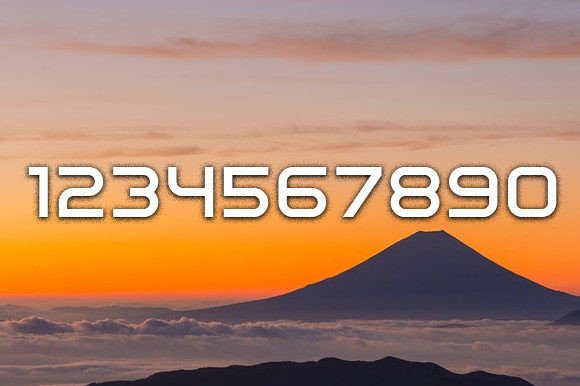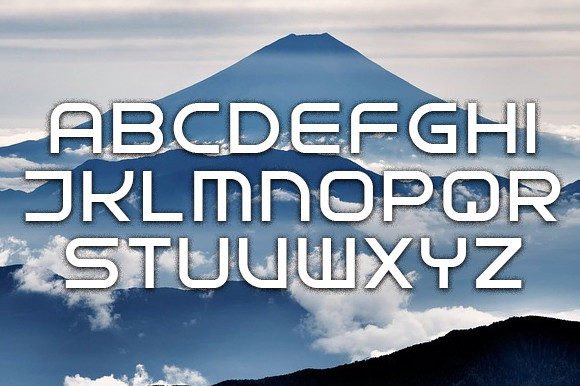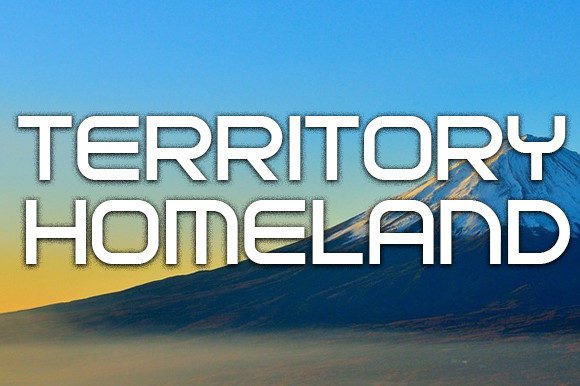
Introduction to Prefectures Font
Do you remember the moment when a font choice completely transformed your creative project? For designers, this feeling is all too familiar. It’s the spark that takes your idea from ordinary to extraordinary. And that’s exactly what Prefectures Font can do for your next high-quality design.
As a free download, Prefectures Font offers a clean and simple sans serif design that’s perfect for a variety of creative projects, from posters and flyers to t-shirts and more. With its transparent background and sleek aesthetic, this versatile font is sure to elevate your designs and make them stand out in a crowd.
Whether you’re working on a personal project or a commercial design, Prefectures Font is a valuable resource that’s sure to become a go-to choice for your creative endeavors.
Prefectures Font
- High-quality font designed for creative projects, available for free download.
- Includes 4 unique styles with transparent background, perfect for adding depth to your designs.
- Designed to be versatile, Prefectures Font can be used for a wide range of creative projects, from logos to signage.
- Each style features unique characteristics, such as subtle texture and intricate details, adding an extra layer of depth to your designs.
Honest Review: Prefectures Font
I recently had the chance to work with the Prefectures Font, and I must say it’s a high-quality design resource that’s perfect for any creative project.
- ✨ Unique and modern design: The Prefectures Font offers a modern and unique aesthetic that’s sure to make your design stand out.
- ✨ Transparent background: The transparent background option gives designers more flexibility when working on designs with complex backgrounds.
- ⚠️ Not ideal for small text: The font’s design makes it less suitable for small text, where legibility can be a concern.
Overall, I’m impressed with the Prefectures Font’s design and versatility. While it may not be perfect for every project, it’s a solid choice for designers looking for a modern and unique font. With a bit of creative experimentation, I’m confident that this font can help take your design projects to the next level.
Prefectures Font
Tips for Getting the Most Out of Prefectures Font
For optimal results, use Prefectures Font in conjunction with other high-quality design resources. Experiment with different font sizes, colors, and arrangements to achieve the desired look. Take advantage of the transparent background option to create visually appealing designs.
Prefectures Font is ideal for a variety of creative projects, including logos, business cards, and brochures. Its high-quality design and transparent background make it a valuable design resource for any project.